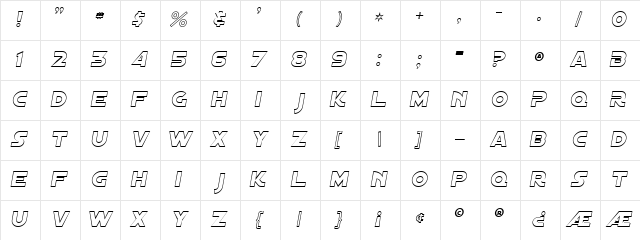
Distant Galaxy Outline Italic Free Font
Distant Galaxy Outline Italic
Distant Galaxy Outline Family
Complete Distant Galaxy Outline Italic glyph index. Displaying only characters natively supported by Distant Galaxy Outline Italic font.
Design Context for Distant Galaxy Outline
Distant Galaxy Outline is built around its visual character rather than neutral utility - its distinctive forms are designed to make an impression at display sizes. The slanted form adds forward momentum and visual energy.
Font Pairing: Pair with a clean neutral sans-serif for body copy to let Distant Galaxy Outline's character lead without overwhelming the composition.
Pro Tip: Use Distant Galaxy Outline exclusively at display sizes - it was designed to be seen, not read at length. Let a neutral companion handle body copy.